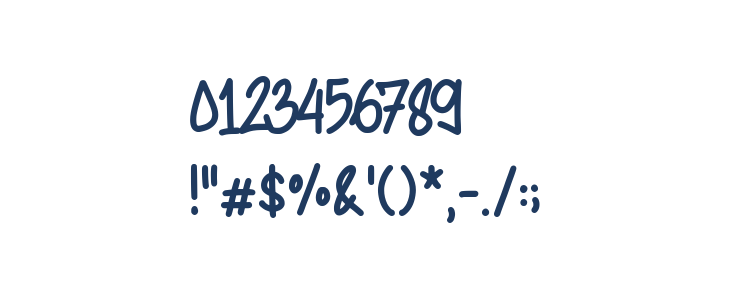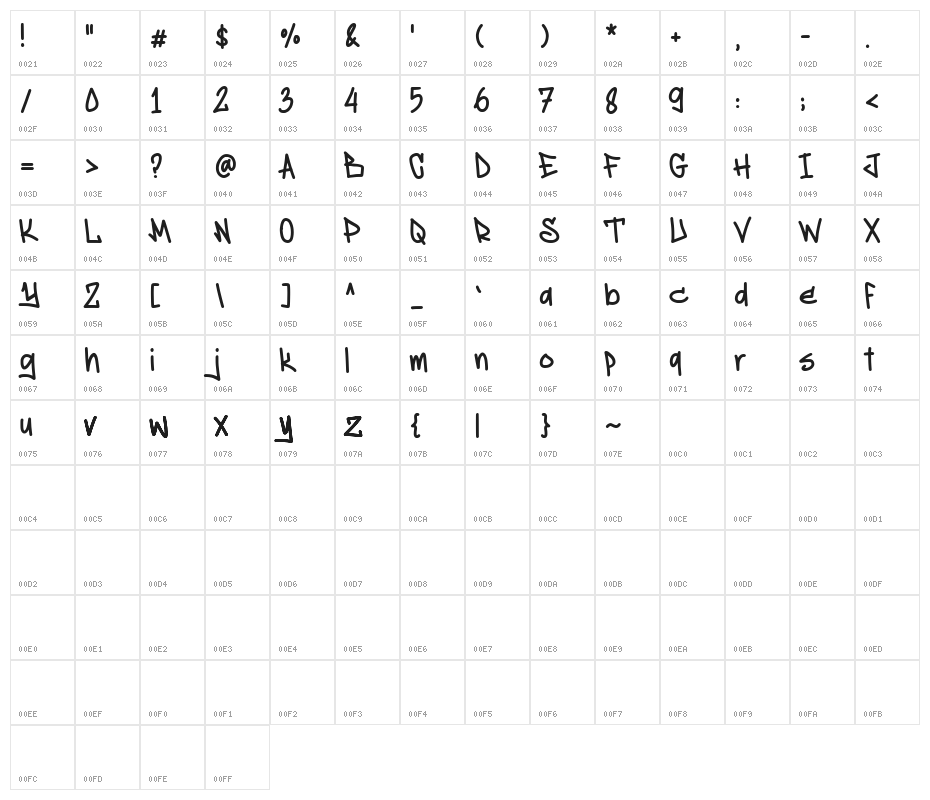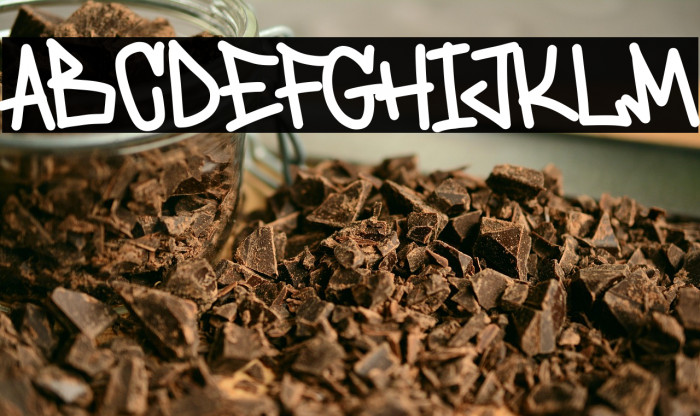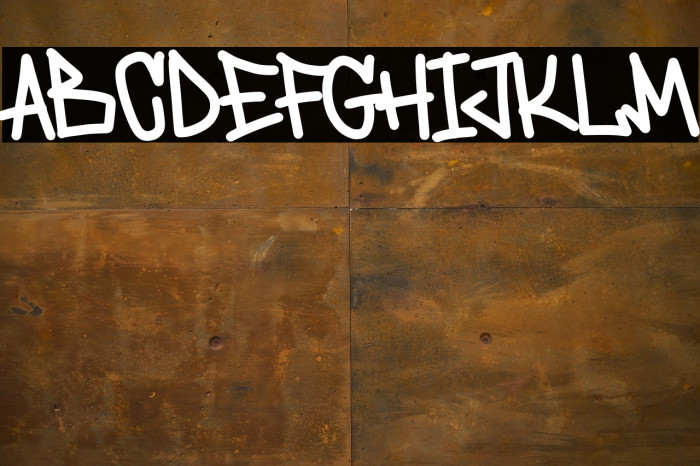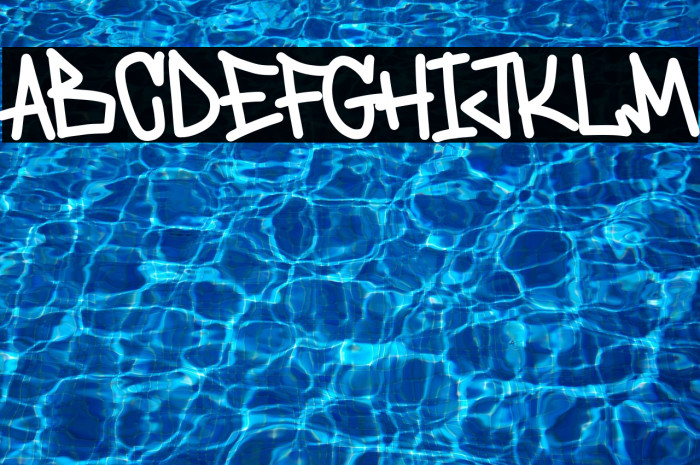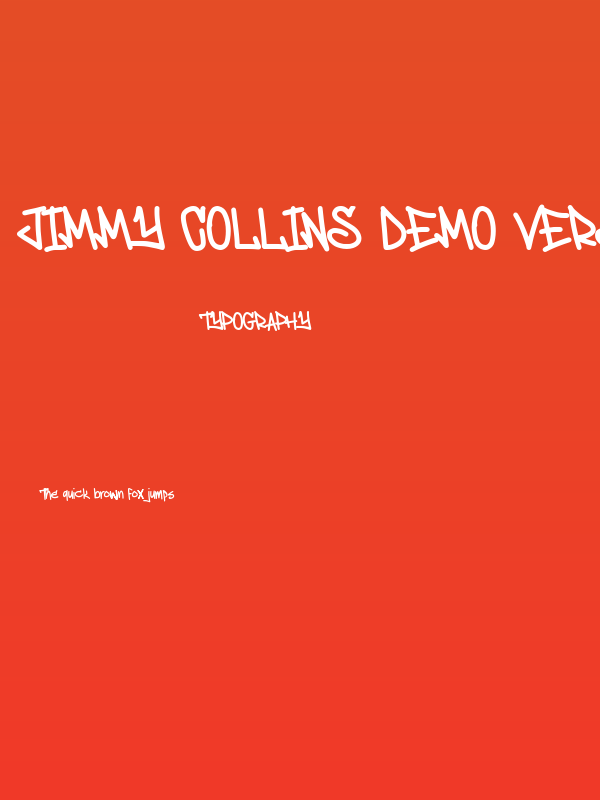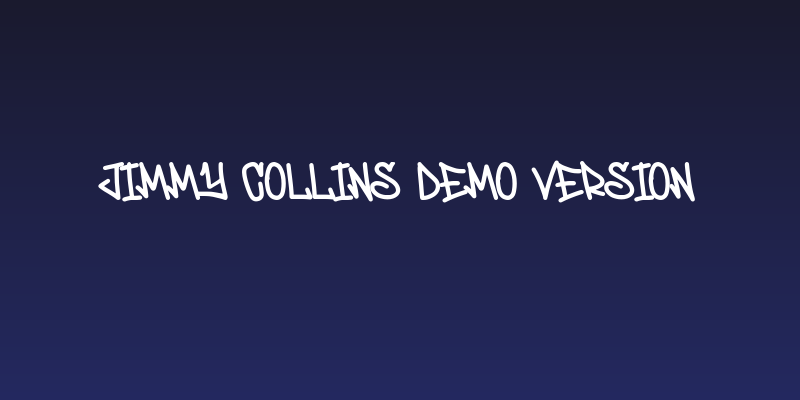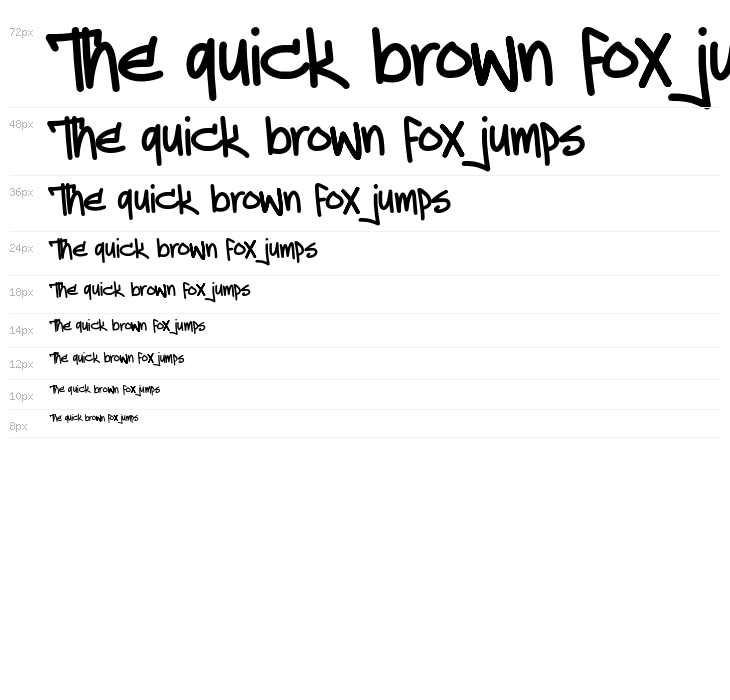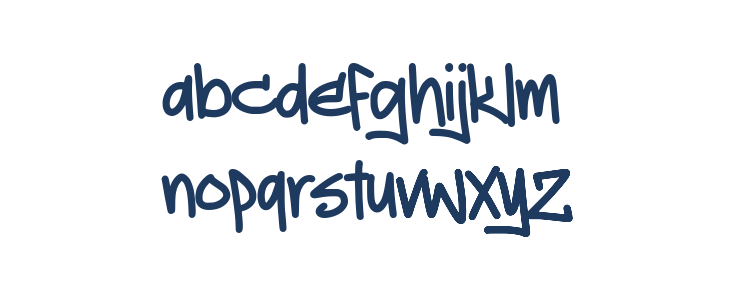
Jimmy Collins Demo Version Font
Jimmy Collins Demo Version Description
This font features a bold, graffiti-inspired style with a playful and energetic vibe. The letters are characterized by their thick strokes and irregular, hand-drawn appearance, giving them a dynamic and informal look. The uppercase and lowercase letters maintain a consistent style, with exaggerated curves and angles that add to the font's street-art aesthetic. Numbers and special characters follow the same design principles, ensuring a cohesive look across all glyphs. The font's unique style makes it stand out, ideal for projects that require a youthful and rebellious touch.
| Overall Style | Modern, Urban |
| Use Case | Headlines, Posters, Branding |
| Proposed Projects | Ideal for street art designs, urban-themed posters, music album covers, and youth-oriented branding. |